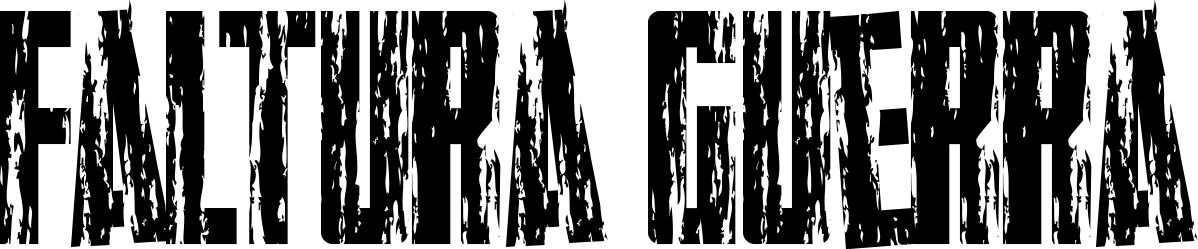
Faltura Guerra Font
One way to increase the quality and efficiency of content is to use a variety of new and attractive fonts. Faltura Guerra is a destroy font that does not support lowercase letters. This font has a creative design and visual appeal, and you can use Faltura Guerrato to design attractive logos for video games or action movies.